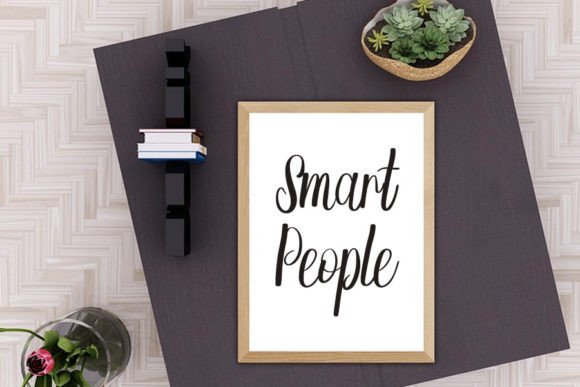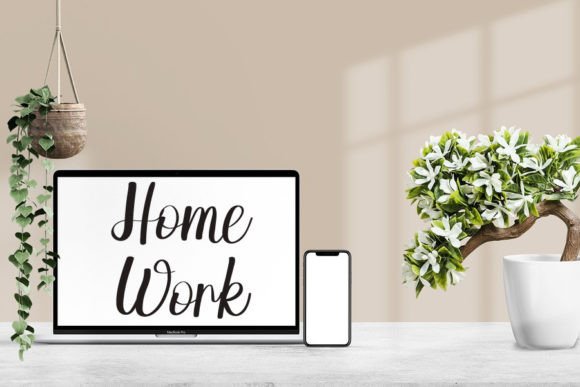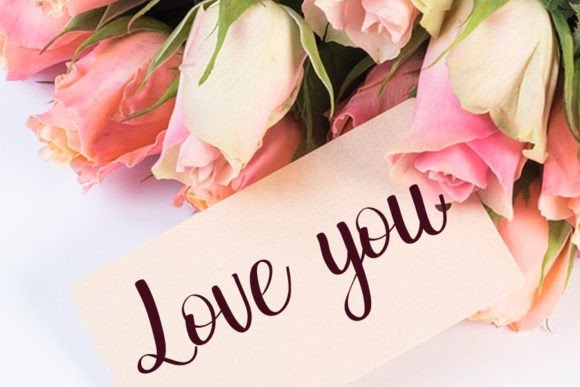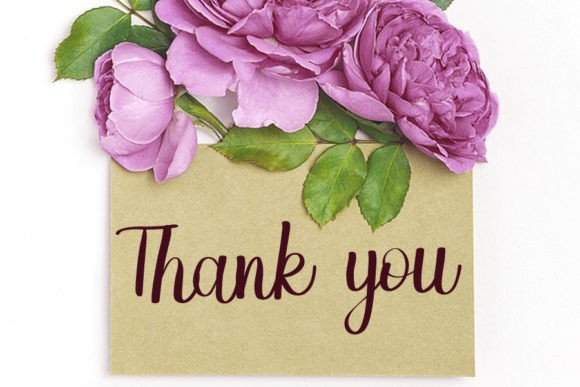
About Someone Font
“Someone is a captivating and modern handwritten font designed to elevate your design projects across a variety of applications. Its versatility makes it an excellent choice for YouTube banners, cover logo mockups, wedding invitations, ID cards, flyers, crafts, and more. Integrating Someone into your designs not only enhances visual appeal but also contributes to the progression and development of your business.
What sets Someone apart is its simplicity and uniqueness, adding a distinctive character to your creative endeavors. The font’s clean lines and stylish strokes make it well-suited for a wide range of design applications. Whether you’re working on digital content, print materials, or crafting personalized invitations, Someone introduces a sense of freshness and individuality into your projects.
Envision the impact Someone can have on your YouTube banners, infusing them with a modern charm and making them memorable. Picture it gracing your wedding invitations, setting the perfect tone for a special occasion with its fresh and beautiful style. Integrate Someone into your logo mockups, and experience how it adds a unique charm to your brand identity.
From ID cards to crafts and beyond, Someone’s adaptability ensures that it enhances various design contexts. It becomes more than just a font; it becomes a signature element that contributes to the overall success and aesthetic excellence of your projects.
Select Someone for your design endeavors and witness the simplicity, uniqueness, and freshness it brings to your creative pursuits. Let it be the font that propels your business forward, leaving a lasting impression on your audience with its captivating and distinctive character.”